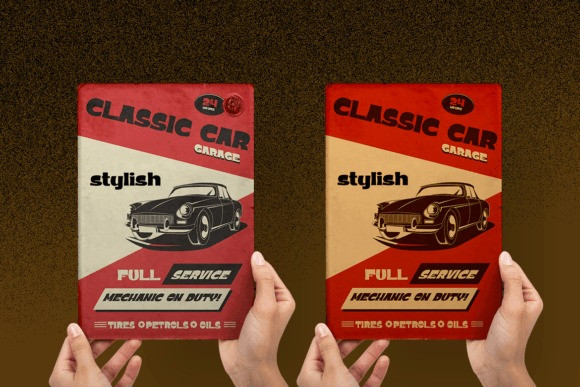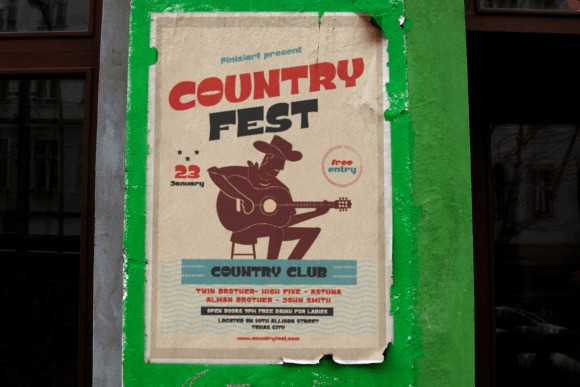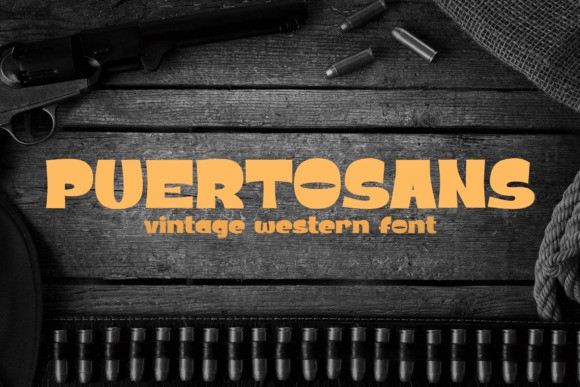
Puertosans Font
Puertosans Display Font is a retro and western-looking display font. This bold, unique, and vintage font can easily become your favorite. It can be used for books, magazine covers, social media posts, invitations, and so much more! So add this to your creations and take your designs to the next level!